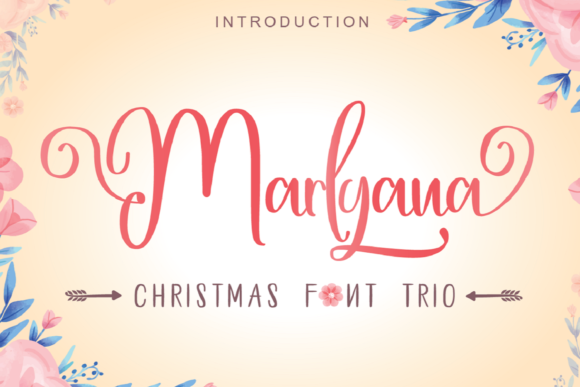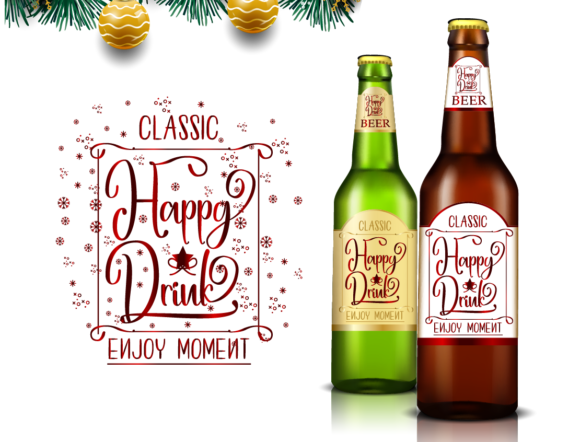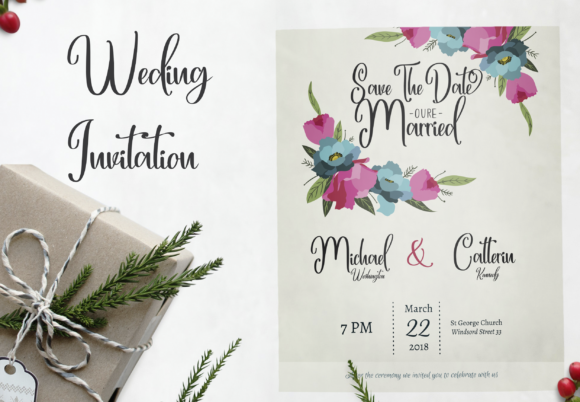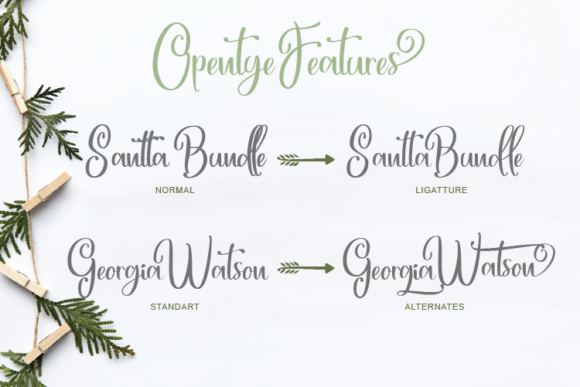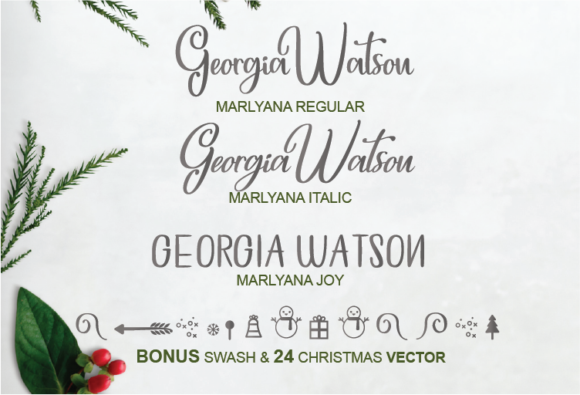
Happy Marlyana TrioFamily Font
About Happy Marlyana TrioFamily Font
The Happy Marlyana is a fresh handmade calligraphy font which comes in 5 variations that match perfectly together!
It’s suitable for greeting cards, branding materials, business cards, quotes, posters, and more!